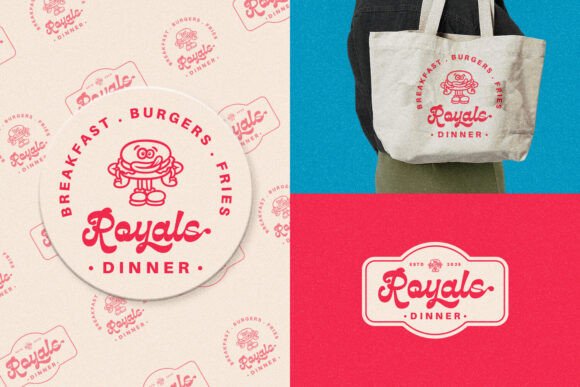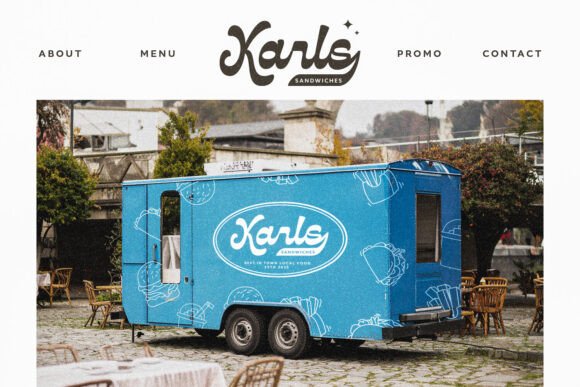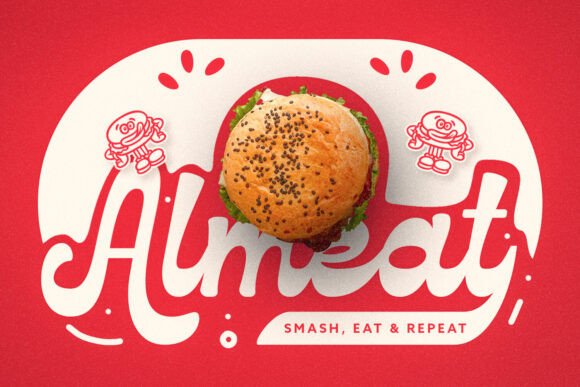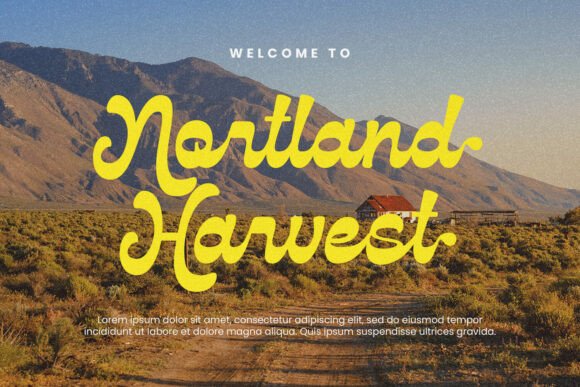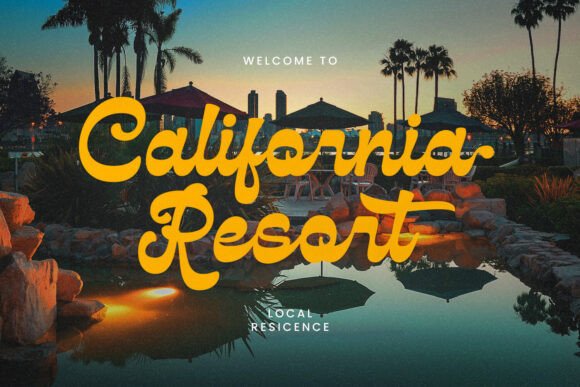
HC Lavina – A Classy Reverse Contrast Script
Introducing HC Lavina, a bold yet elegant reverse contrast script font that brings a touch of retro charm with a modern twist. Designed with smooth curves and playful swashes, HC Lavina is perfect for branding, packaging, logotype, editorial headlines, and social media graphics.
What is HC Lavina?
HC Lavina is a unique and stylish font that combines the classic elegance of traditional script fonts with the modern edge of reverse contrast typography. Its distinctive contrast style, characterized by thick horizontal strokes and light verticals, gives it an eye-catching look that sets it apart from other fonts.
Key Features of HC Lavina
- Reverse Contrast Style: HC Lavina features a bold and elegant reverse contrast style, with thick horizontal strokes and light verticals. This unique style gives the font a distinctive and eye-catching look.
- Smooth Curves and Playful Swashes: The font is designed with smooth curves and playful swashes, adding a touch of elegance and sophistication to any design.
- Perfect for Branding and Design: HC Lavina is perfect for branding, packaging, logotype, editorial headlines, and social media graphics. Its unique style and elegant curves make it ideal for creating stunning designs.
Uses of HC Lavina
HC Lavina is a versatile font that can be used in a variety of design projects. Here are some of the ways you can use HC Lavina:
- Branding and Logo Design: HC Lavina is perfect for creating unique and memorable logos that stand out from the crowd.
- Packaging Design: The font’s elegant curves and playful swashes make it ideal for packaging design, adding a touch of sophistication to any product.
- Editorial Headlines: HC Lavina is perfect for creating stunning editorial headlines that grab attention and add a touch of elegance to any publication.
- Social Media Graphics: The font’s unique style and elegant curves make it ideal for creating stunning social media graphics that stand out from the crowd.
Why Choose HC Lavina?
HC Lavina is a high-quality font that offers a unique and stylish solution for designers and crafters. Here are some reasons why you should choose HC Lavina:
- Unique and Eye-Catching Design: HC Lavina features a unique and eye-catching design that sets it apart from other fonts.
- High-Quality and Versatile: The font is high-quality and versatile, making it perfect for a variety of design projects.
- Elegant and Sophisticated: HC Lavina adds a touch of elegance and sophistication to any design, making it perfect for creating stunning designs.
Tips and Tricks for Using HC Lavina
Here are some tips and tricks for using HC Lavina:
- Use it with a Bold Color: HC Lavina looks stunning when paired with a bold color. Try using it with a bright and bold color to add a pop of color to your design.
- Experiment with Different Sizes: The font looks great in different sizes. Experiment with different sizes to find the perfect size for your design.
- Pair it with a Simple Background: HC Lavina looks great when paired with a simple background. Try using it with a simple background to add a touch of elegance to your design.
HC Lavina is a classy reverse contrast script font that brings a touch of retro charm with a modern twist. With its smooth curves and playful swashes, HC Lavina is perfect for branding, packaging, logotype, editorial headlines, and social media graphics. Its unique style and elegant curves make it ideal for creating stunning designs that stand out from the crowd.